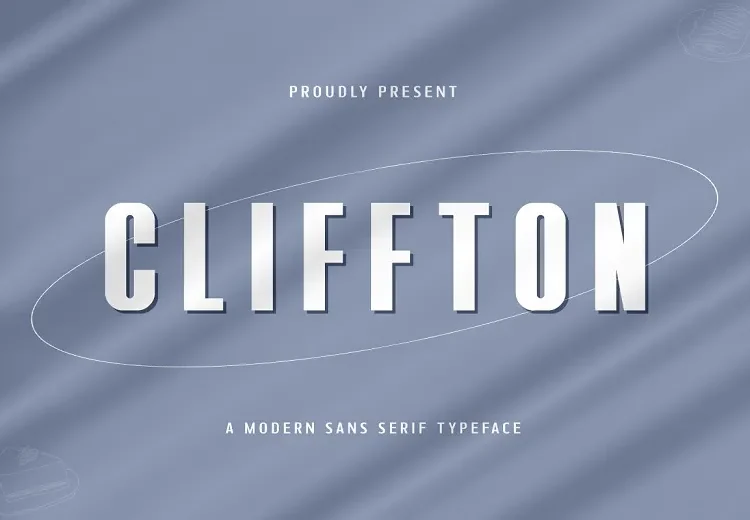
Cliffton Font
Cliffton is a modern sans serif font that combines elegance with simplicity, offering a clean and sophisticated look that is perfect for a variety of design projects. With its thick, bold lines and minimalist style, Cliffton stands out as a versatile typeface that appeals to those seeking a straightforward and impactful sans serif option. Unlike other fonts with ornate or decorative features, Cliffton’s design is intentionally stripped down, making it easy to distinguish one letter from another, enhancing readability and clarity.
This font’s refined appearance makes it an excellent choice for projects that require a sleek and professional touch. Whether you’re designing clothing labels, posters, or banners, Cliffton adds an element of modernity and neatness to your work. Its simplicity does not compromise on style; instead, it amplifies the visual appeal by focusing on clean lines and balanced proportions. Cliffton’s versatility extends to both digital and print media, making it equally effective for magazine covers, online publications, and other print materials.
Cliffton’s elegant and unadorned design makes it particularly well-suited for use in branding and advertising, where a clear and memorable visual identity is crucial. The font’s modern aesthetic lends itself to a wide range of applications, from fashion and lifestyle brands to corporate communications. Its ability to maintain a polished and neat look across different mediums ensures that Cliffton remains a go-to choice for designers looking to create a cohesive and professional image.